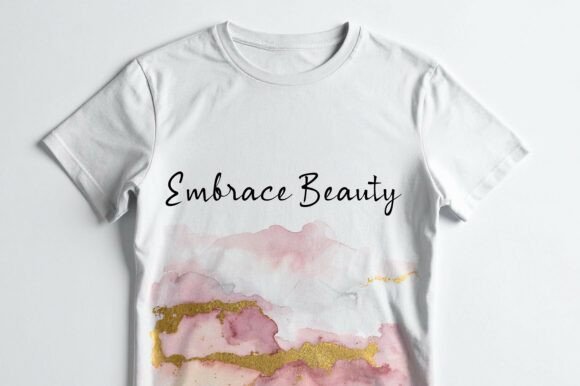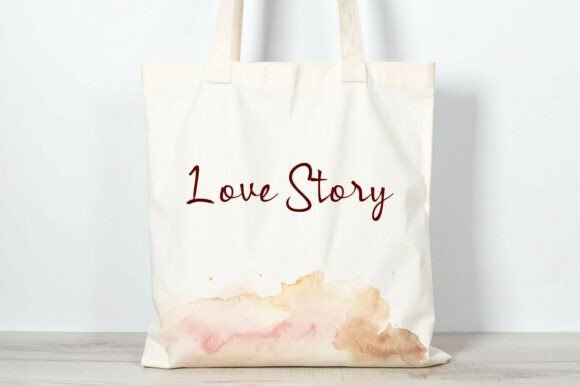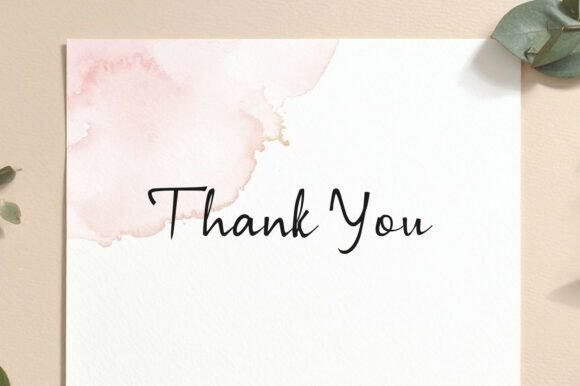
Amanah Guru Font: Elevate Your Designs with Elegance and Sophistication
The “Amanah Guru” Script font is a stunning example of a handwritten typeface that seamlessly blends elegance with a natural, approachable feel. This beautiful font features delicate strokes and flowing connections, giving it the authentic look of exquisite calligraphy or fine handwriting. In this article, we’ll explore what makes “Amanah Guru” special and how it can elevate your designs.
What Makes Amanah Guru Special?
The “Amanah Guru” font boasts several unique characteristics that set it apart from other typefaces. Here are a few key features:
- Delicate & Sophisticated: The thin, elegant strokes and careful spacing give it a refined and high-class aesthetic, perfect for conveying quality and beauty.
- Handwritten Authenticity: It maintains the charm of genuine handwriting with subtle variations and fluid connections, making it feel personal and warm without being informal.
- Artistic & Ethereal: There’s an almost artistic, light, and airy quality to this font, especially when paired with soft backgrounds like watercolor washes.
- Versatile Elegance: It’s formal enough for upscale projects but still possesses a gentle, inviting quality that makes it suitable for personal touches.
What is Amanah Guru Good For?
The “Amanah Guru” Script font is incredibly versatile and can be used for a wide range of design projects. Here are some ideas to get you started:
- Wedding Invitations and Stationery: The elegant and refined aesthetic of “Amanah Guru” makes it perfect for wedding invitations, save-the-date cards, and other stationery.
- Branding and Packaging: The font’s sophisticated and high-class feel makes it ideal for luxury brands, high-end products, and premium services.
- Art and Craft Projects: The artistic and ethereal quality of “Amanah Guru” makes it a great choice for art and craft projects, such as handmade cards, scrapbooking, and journaling.
- Digital and Print Media: The font’s legibility and readability make it suitable for use in digital and print media, including magazines, blogs, and social media graphics.
Tips for Using Amanah Guru Effectively
To get the most out of “Amanah Guru”, here are some tips to keep in mind:
- Pair with Simple Backgrounds: The font’s delicate strokes and elegant aesthetic can get lost in busy or bold backgrounds. Pair it with simple, soft backgrounds to let the font shine.
- Use for Headings and Titles: “Amanah Guru” is perfect for headings and titles, where its elegant and refined aesthetic can make a big impact.
- Experiment with Colors: The font’s artistic and ethereal quality makes it a great choice for use with a range of colors, from soft pastels to rich jewel tones.
The “Amanah Guru” Script font is a beautiful and versatile typeface that can elevate your designs with its elegance and sophistication. Whether you’re a designer, crafter, or DIY enthusiast, this font is sure to inspire your creativity and help you create stunning projects. With its delicate strokes, flowing connections, and refined aesthetic, “Amanah Guru” is the perfect choice for anyone looking to add a touch of elegance and sophistication to their designs.